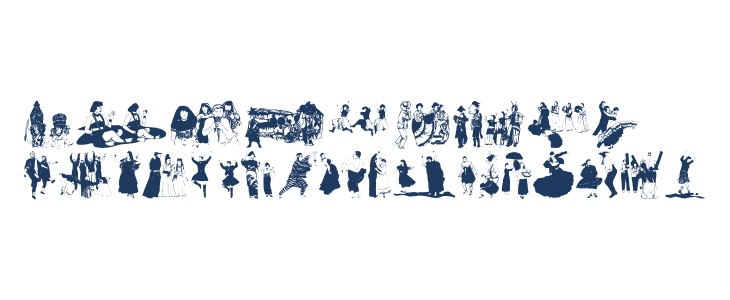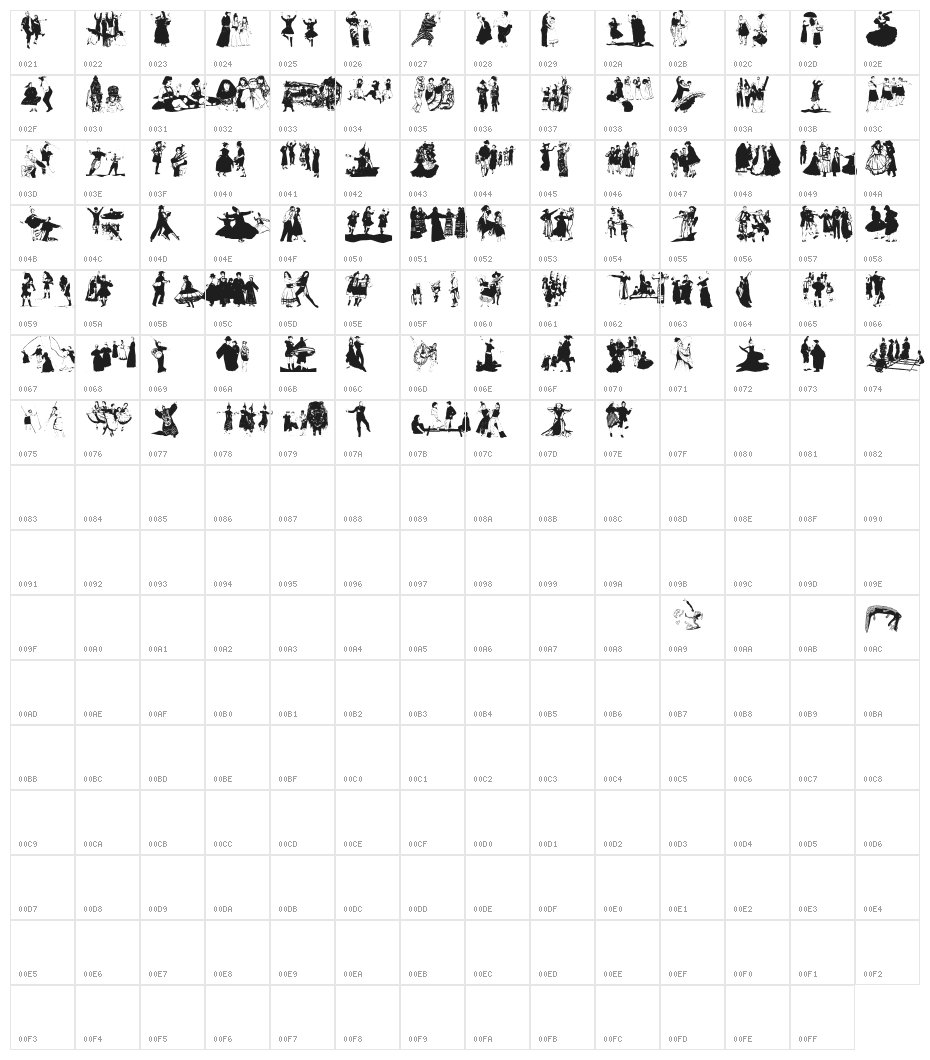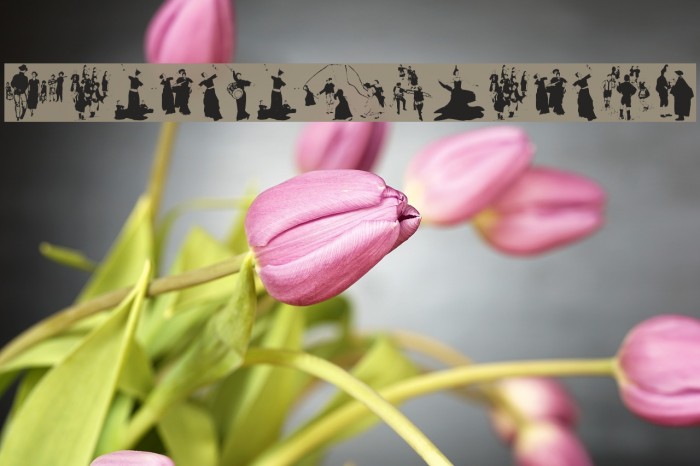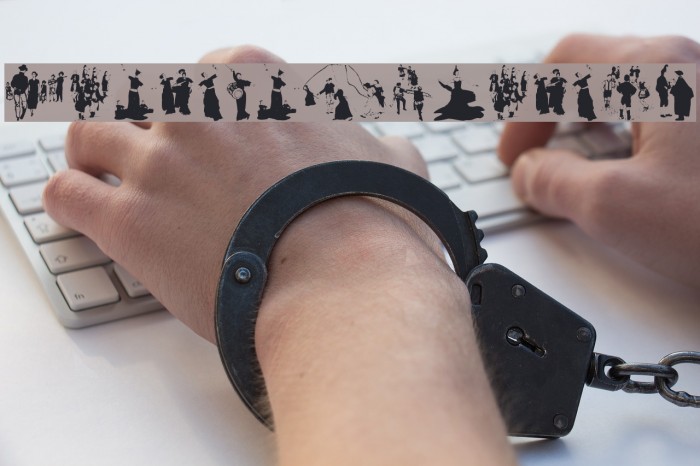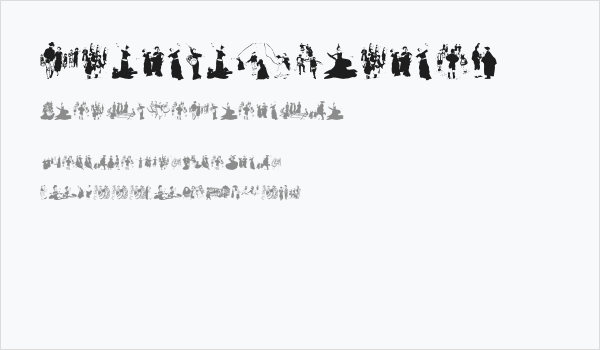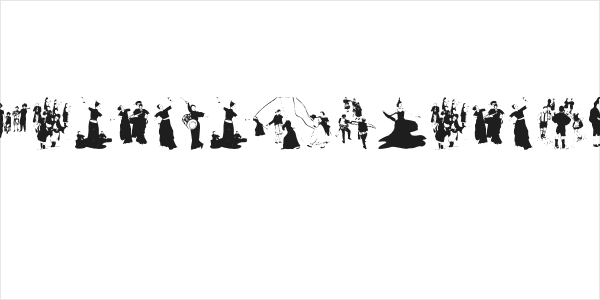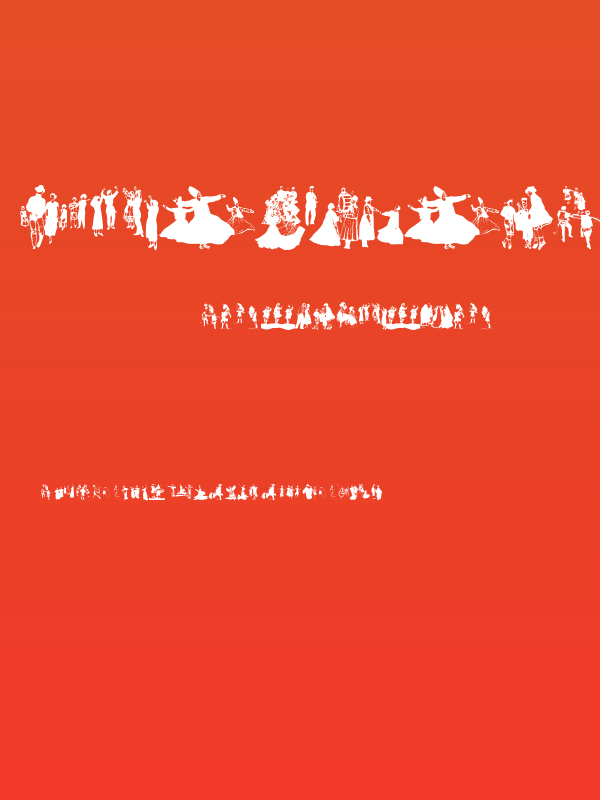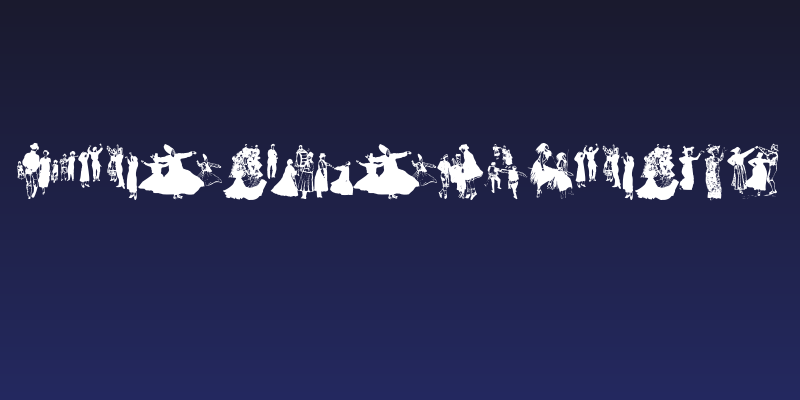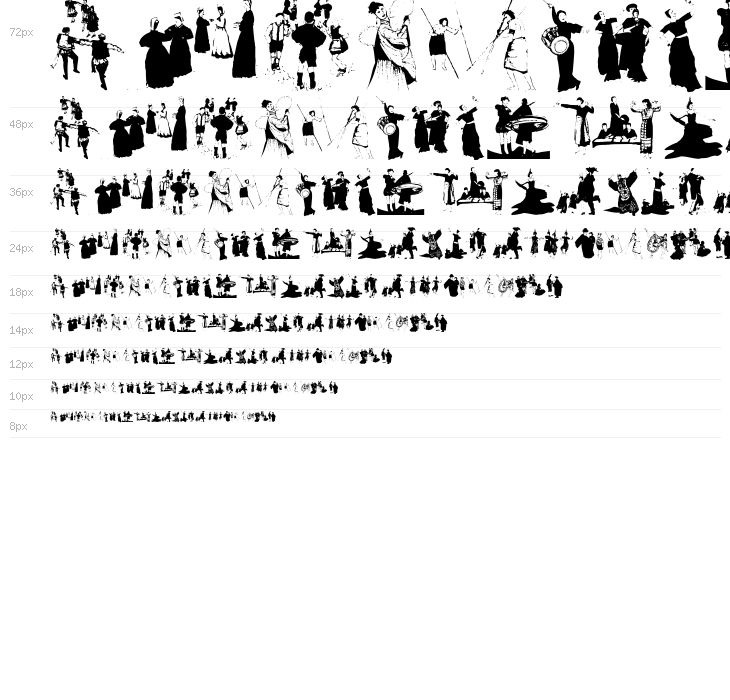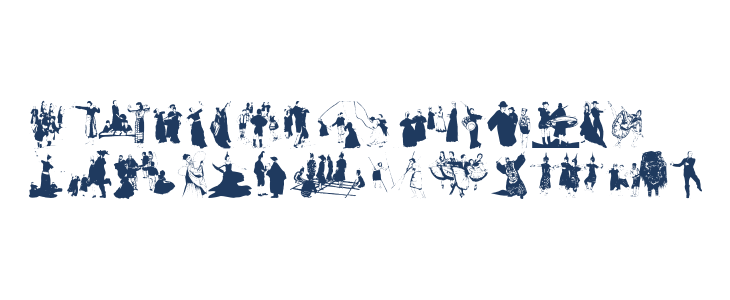
DancingTraces Font
DancingTraces Description
A highly decorative and illustrative font composed of detailed silhouettes of dancing figures and groups, each character formed by unique human poses and arrangements. The glyphs are complex, with high visual contrast and intricate outlines, making each letter distinct and artistic.
Overall StyleDecorative, Artistic, Playful
Use CaseHeadlines, Posters, Artistic projects, Logos
Proposed ProjectsPosters, event invitations, album covers, art exhibitions, dance-related branding, creative headlines.